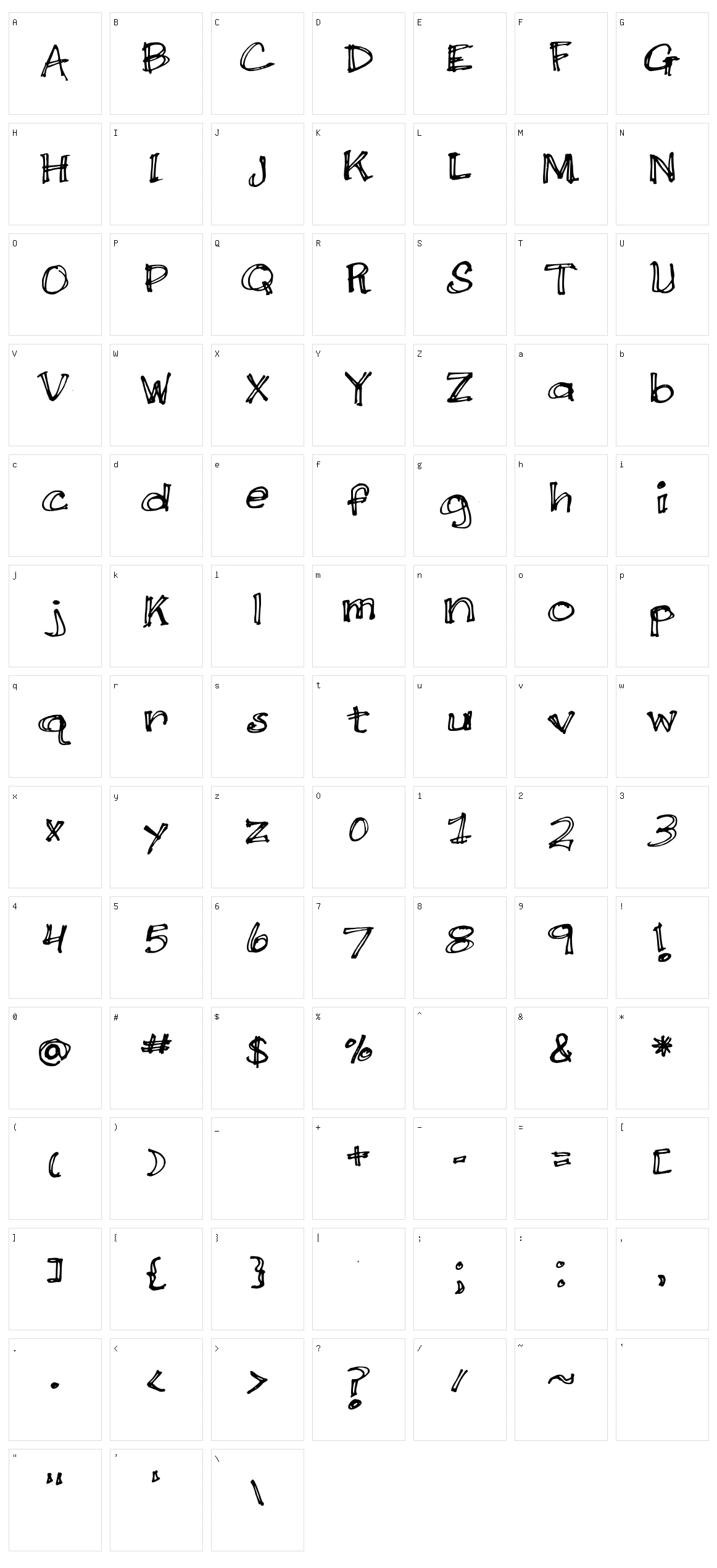
The free font Double Scratch is carefully designed by Brittney Murphy Design, showcasing a thoughtful balance of creativity and usability and falls under the Trash font style. When you download the ZIP file, it contains only 32.14 KB of font files, making it lightweight and quick to download. Please review the license details below to understand permitted usage and distribution rights. If license information is not available, we recommend using this font for personal projects only or contacting the author directly for commercial usage permissions.